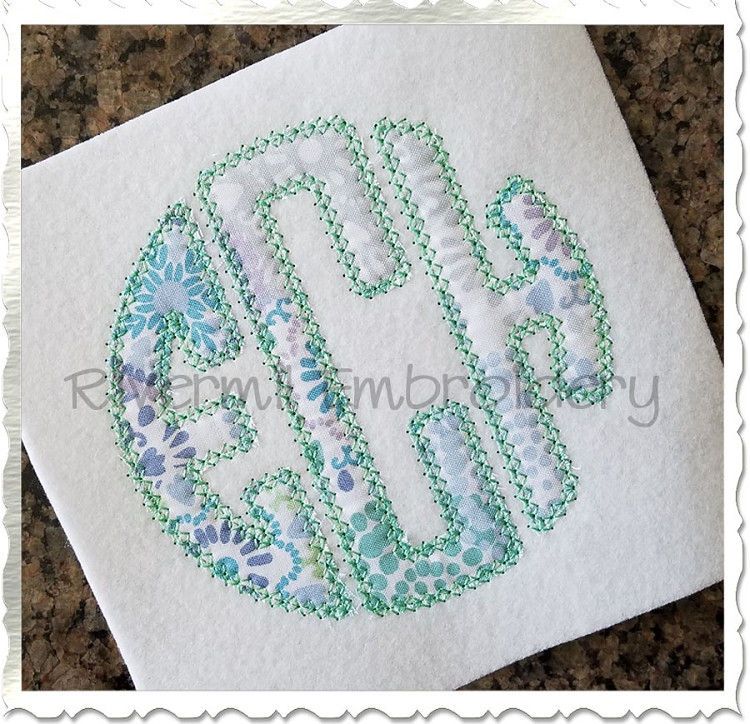
Round Monogram Diamond Edge Applique Machine Embroidery Alphabet Font
You get 4 sizes of upper case letters for the Right, Center, and Left side that form a circle shape when put together. The sizes are based off of the center letter - 3", just under 4" (fits a 4x4 hoop), 5", and 6".